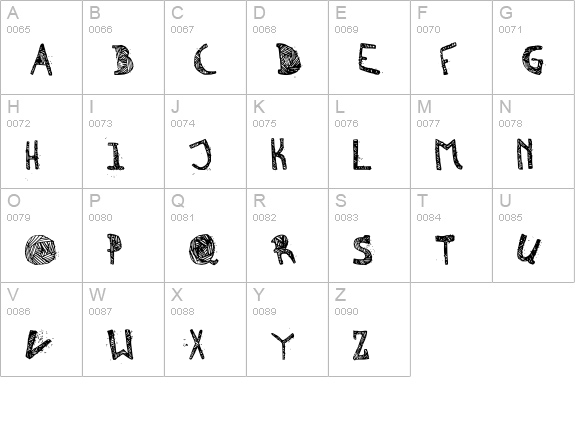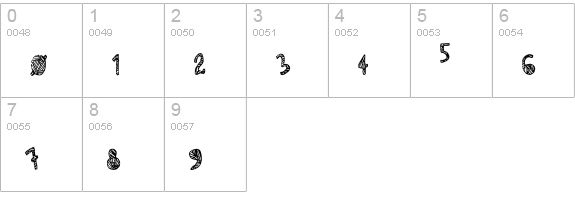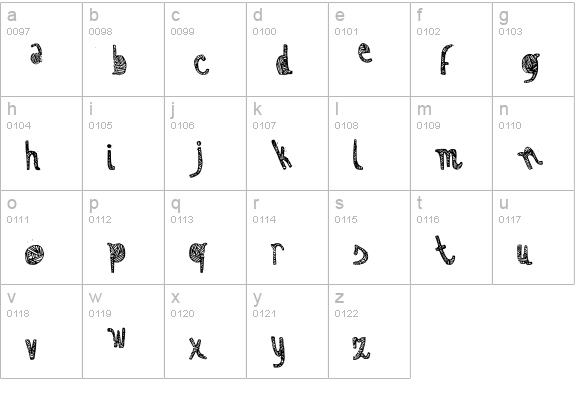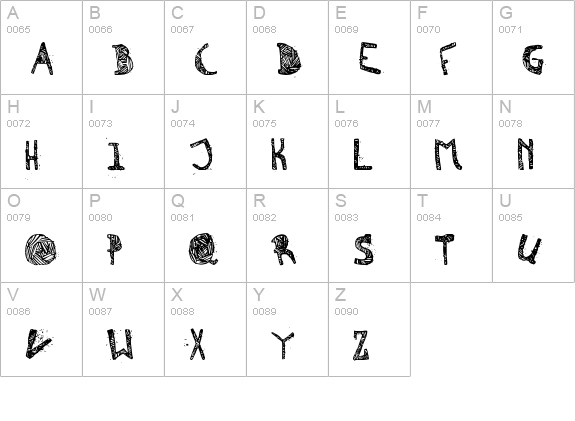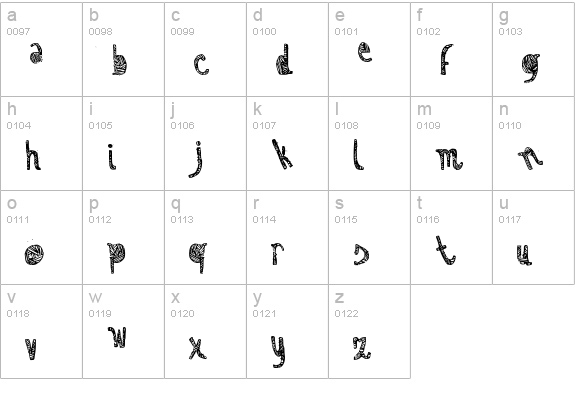
Zebra irregular Font Details
Zebra irregular font is a visually captivating typeface that adds a unique touch to any design project. With its playful and dynamic letterforms, this font is sure to stand out and make a bold statement. The irregular shapes and patterns give Zebra font a sense of movement and energy, making it perfect for projects that require a touch of creativity and originality. Best of all, Zebra irregular font is available for free download at FontsMarket.com, making it easily accessible for designers looking to add a touch of whimsy to their work. Don't miss out on the opportunity to enhance your designs with this eye-catching and free font option!